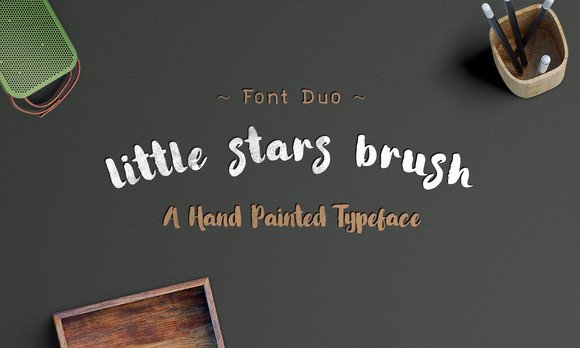
Discover Little Stars Brush Font, a Whimsical Script That Captures the Magic of Childhood
Journey into a world of enchantment with Little Stars Brush Font, an irresistible script font that exudes the charm of cursive handwriting. With each stroke painted with imagination, this font breathes life into children's themes and infuses a touch of playfulness into your branded content.
Immerse yourself in the artistry of Little Stars Brush Font, crafted by the talented Ijem RockArt, a renowned font designer. This delightful font offers a captivating blend of whimsical strokes, delicate curves, and playful characters, leaving an unforgettable impression on your audience.
Let Little Stars Brush Font be your font of choice for captivating children's books, heartwarming invitations, enchanting social media posts, and playful branding materials. Its enchanting style will captivate young imaginations, adding a touch of magic to every project.